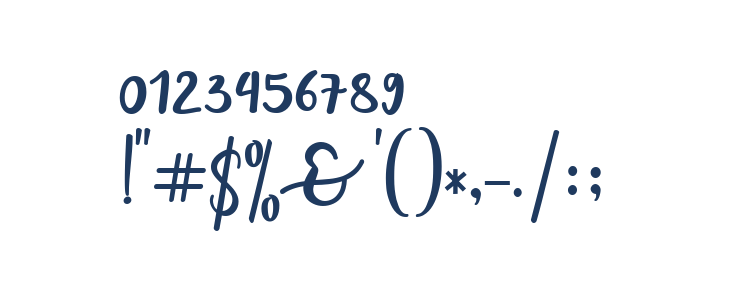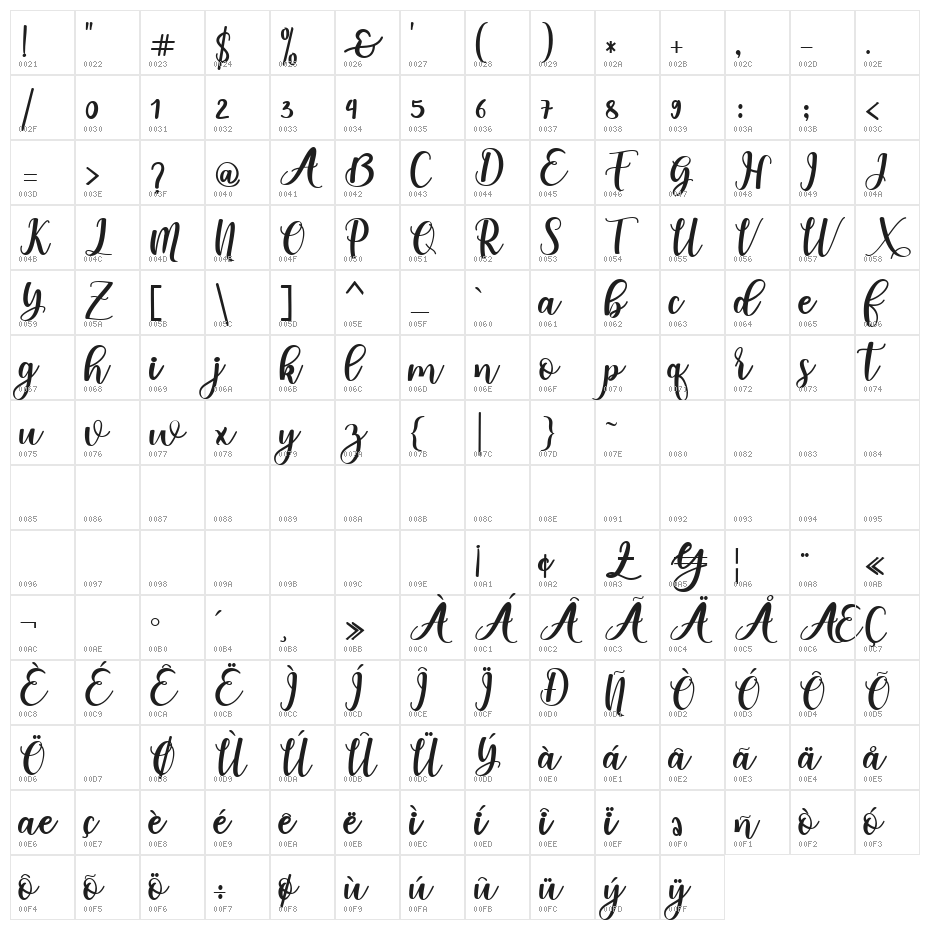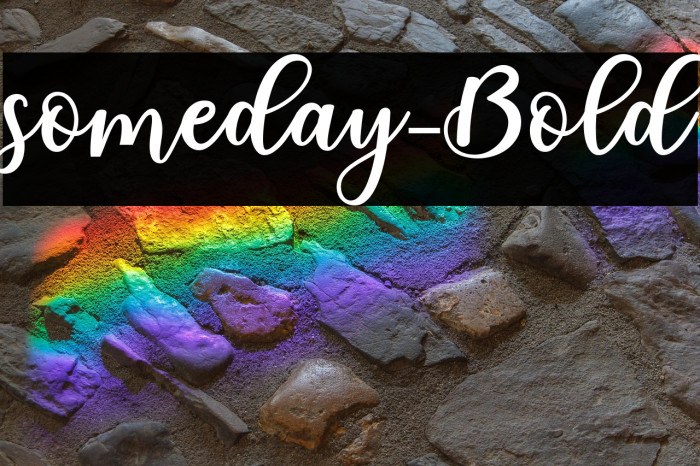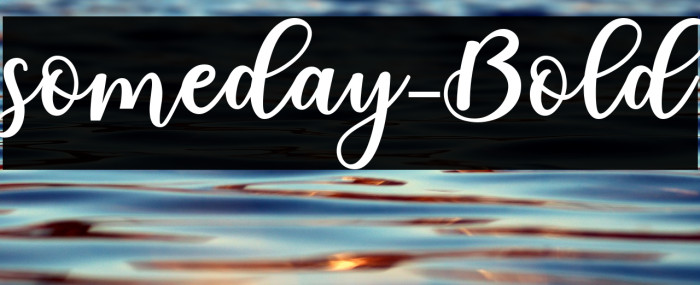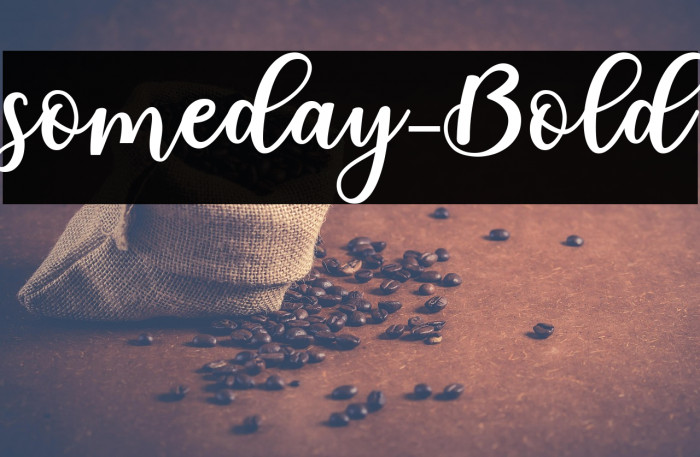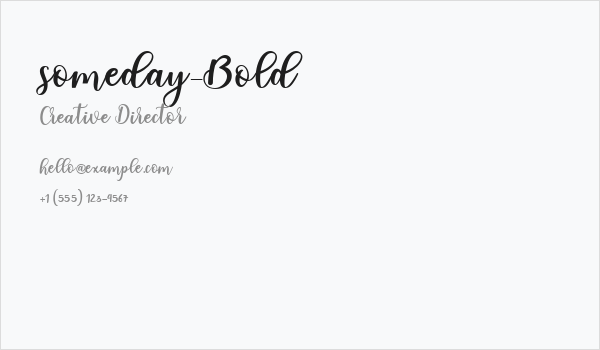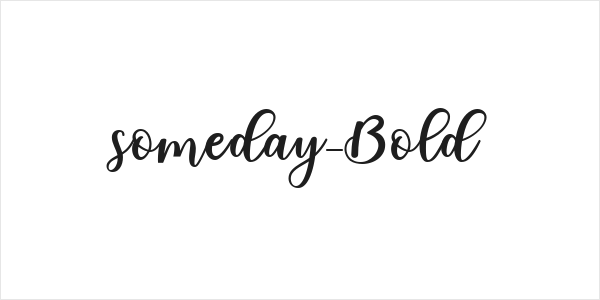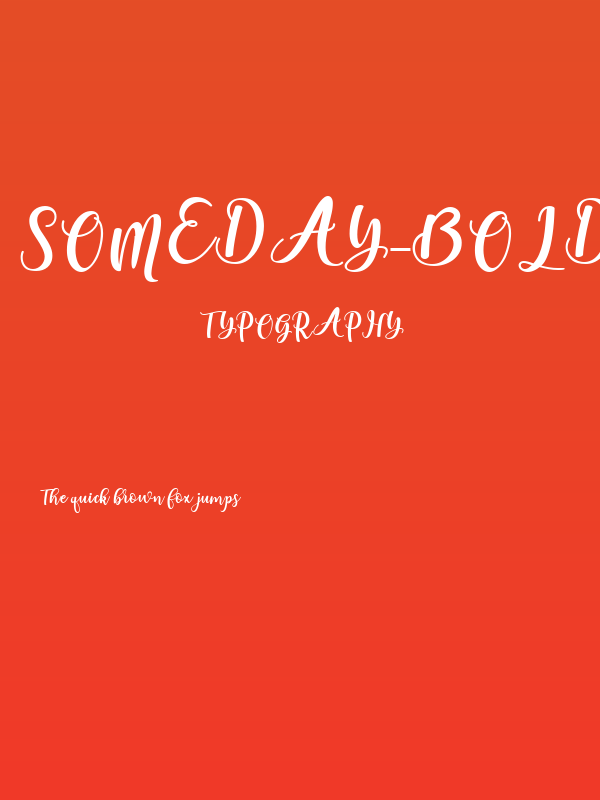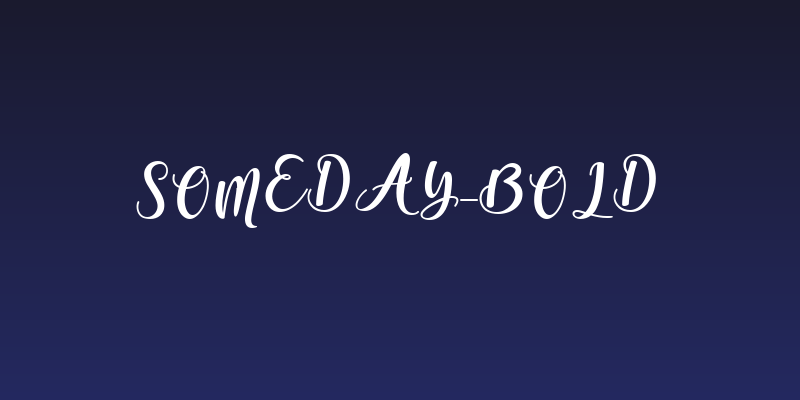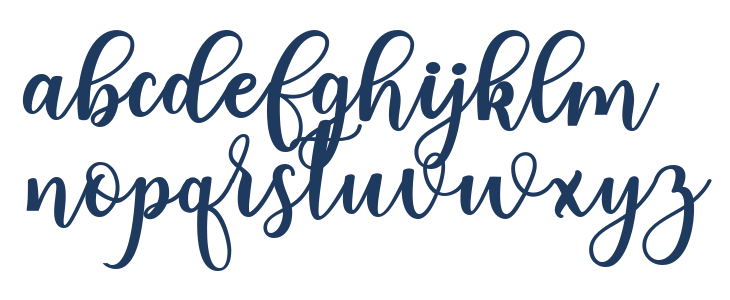
someday-Bold Font
someday-Bold Description
This font features a bold, flowing script style with a modern touch. The uppercase letters are elegantly designed with sweeping curves and flourishes, giving them a sophisticated and artistic appearance. The lowercase letters maintain a consistent flow, with some characters connecting seamlessly, enhancing the script's fluidity. Numbers are bold and clear, matching the overall style of the alphabet. Special characters are creatively integrated, maintaining the font's cohesive look. The font's bold weight and decorative style make it ideal for projects that require a touch of elegance and flair.